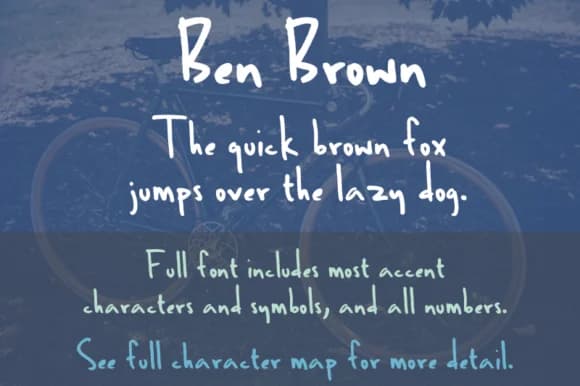
About Ben Brown Font
Ben Brown Font by Quick Brown Fox Fonts is a charming handwritten script rooted in authentic penmanship. Originally developed as a careful digital interpretation of genuine handwriting dating back to 2000 and refined through multiple iterations, this distinctive font captures the natural flow, character, and personality that only comes from pen on paper. The expanded character set includes accent marks and extended glyphs, making Ben Brown equally effective for multilingual and international projects while maintaining the organic, humanly imperfect touch that makes handwritten fonts so visually distinctive in design work.
The handwritten aesthetic makes this font an excellent choice for wedding invitation suites, personalized greeting card designs, decorative scrapbooking layouts, and DIY craft signage that celebrate handmade creative values. It works equally well for creating custom gift labels, hand-lettered event programs, personalized thank you cards, and Etsy product packaging that benefits from warmth and genuine personality. The font's versatility extends to boutique stationery sets, custom wedding postcards, decorative craft projects, and thoughtfully designed packaging for handmade goods and artisan products.
Ben Brown Font is a script font that shines as a display or heading face. Pair it with a clean sans-serif or serif font for body text β the contrast creates a clear hierarchy while the two styles stay balanced and easy to read.